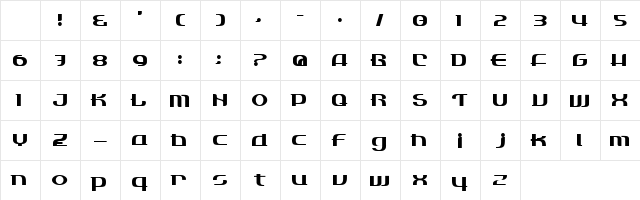
Lovelydesign version2
Design Context for Lovelydesign
Lovelydesign is a composed and adaptable typeface that performs quietly and consistently across a wide range of design contexts.